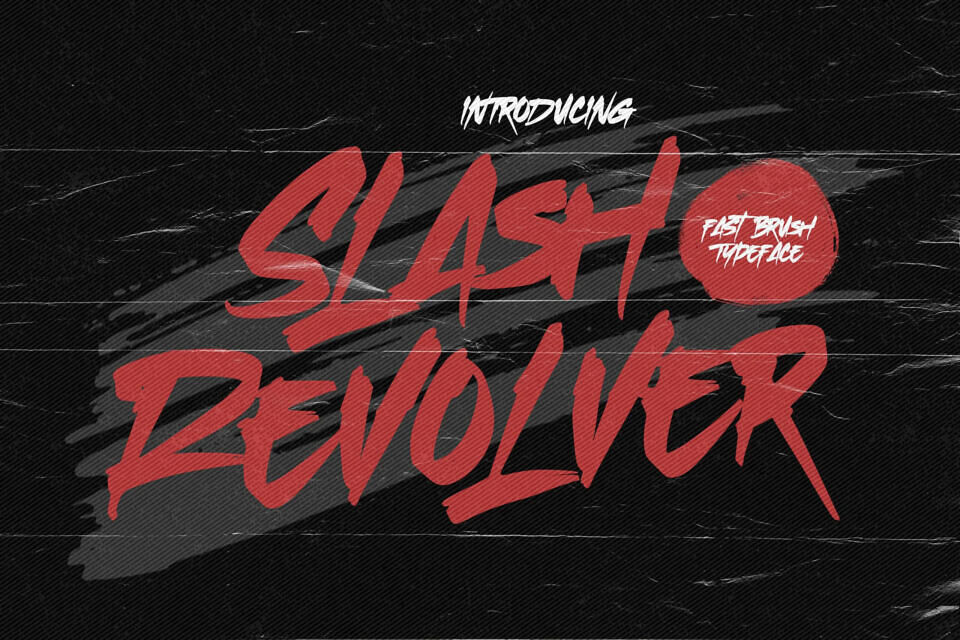
Slash Revolver is a unique, hand-written font with a brush style and elegant feel. It’s ideal for creative projects, including watermarks, logos, and branding.
Its authentic and strong characteristics give it a natural look, making it perfect for various designs, from invitations to product packaging. With OpenType features like ligatures and alternate glyphs, you can add a personal touch to your work.